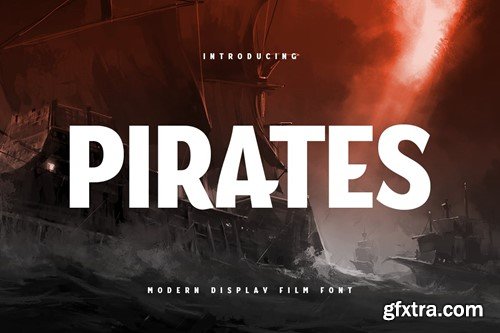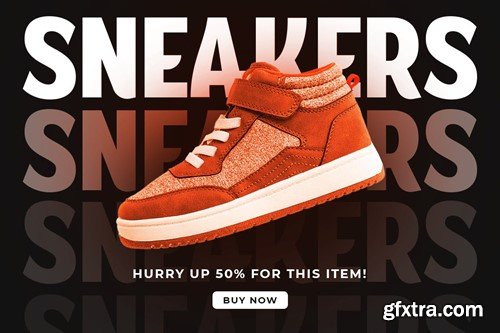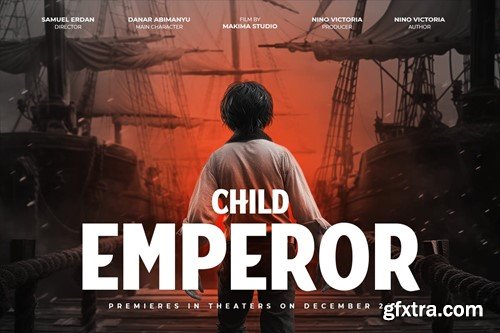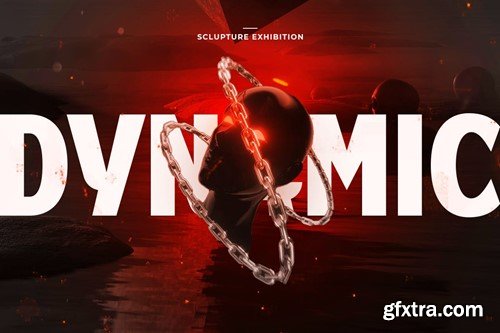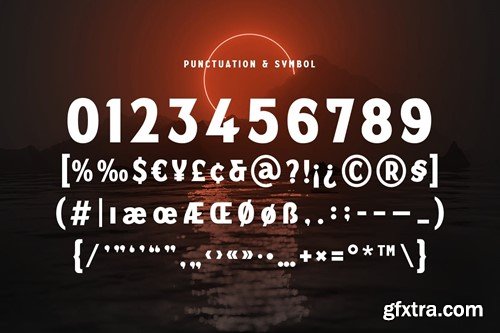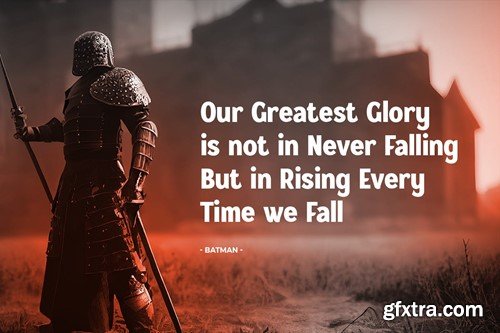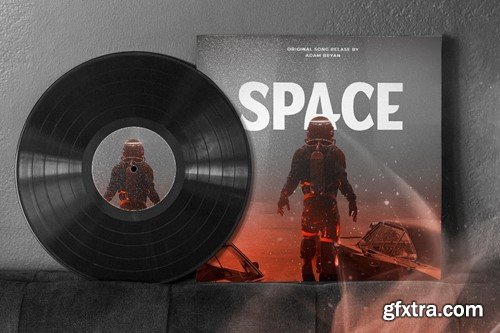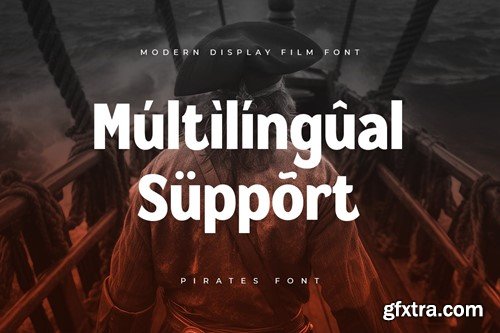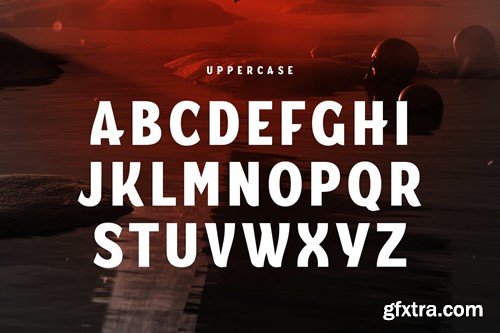
海盗 - 现代显示薄膜字体 EM39ERU
PIRATES - Modern Display Film Font EM39ERU
PIRATES - Modern Display Film Font
PIRATES Modern Display Film Font is a A Modern Display Film Font are prepared special for Film, Logo, Action, Bold, and Sport design needs. It's so perfect to add your style and headline overview for film, horror, actions, and fighting theme. And specially for this font, we crafted for bold action style and modern feels so enjoy to create any project that will show your main idea out.
PIRATES Modern Display Film Font ready with:
• Creative characters prepared to get best results
• Preview as a inspirations that you can do with PIRATES font
• Ready with All Uppercase characters